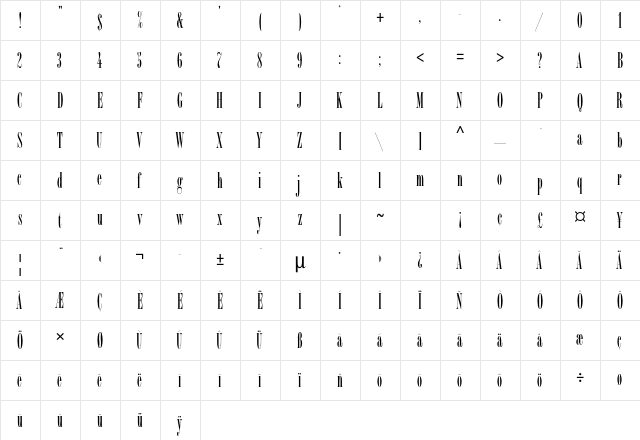
Bordeaux Roman Std Bold Font Preview
Bordeaux Roman Std Bold
Bordeaux Roman Std Bold Font Details
| Designer | David Quay |
Design Context for Bordeaux Roman Std Typeface
Bordeaux Roman Std takes a measured approach to typography — its balanced proportions and neutral character make it a reliable workhorse for both digital and print work. The heavy weight commands attention and anchors typographic hierarchies.